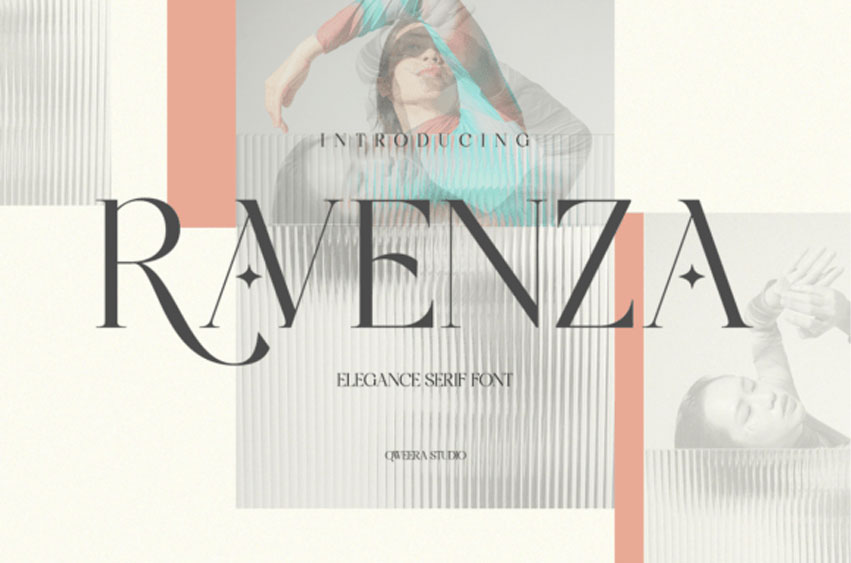
Ravenza Font
Ravenza Font is a modern serif typeface that merges luxury, femininity, and bold editorial design. Perfect for logos, magazine headlines, packaging, and fashion projects.
It’s a refined serif that communicates confidence and class — ideal for designers aiming for a high-end modern aesthetic.
– Regular & Italic
– Alternates & Ligatures